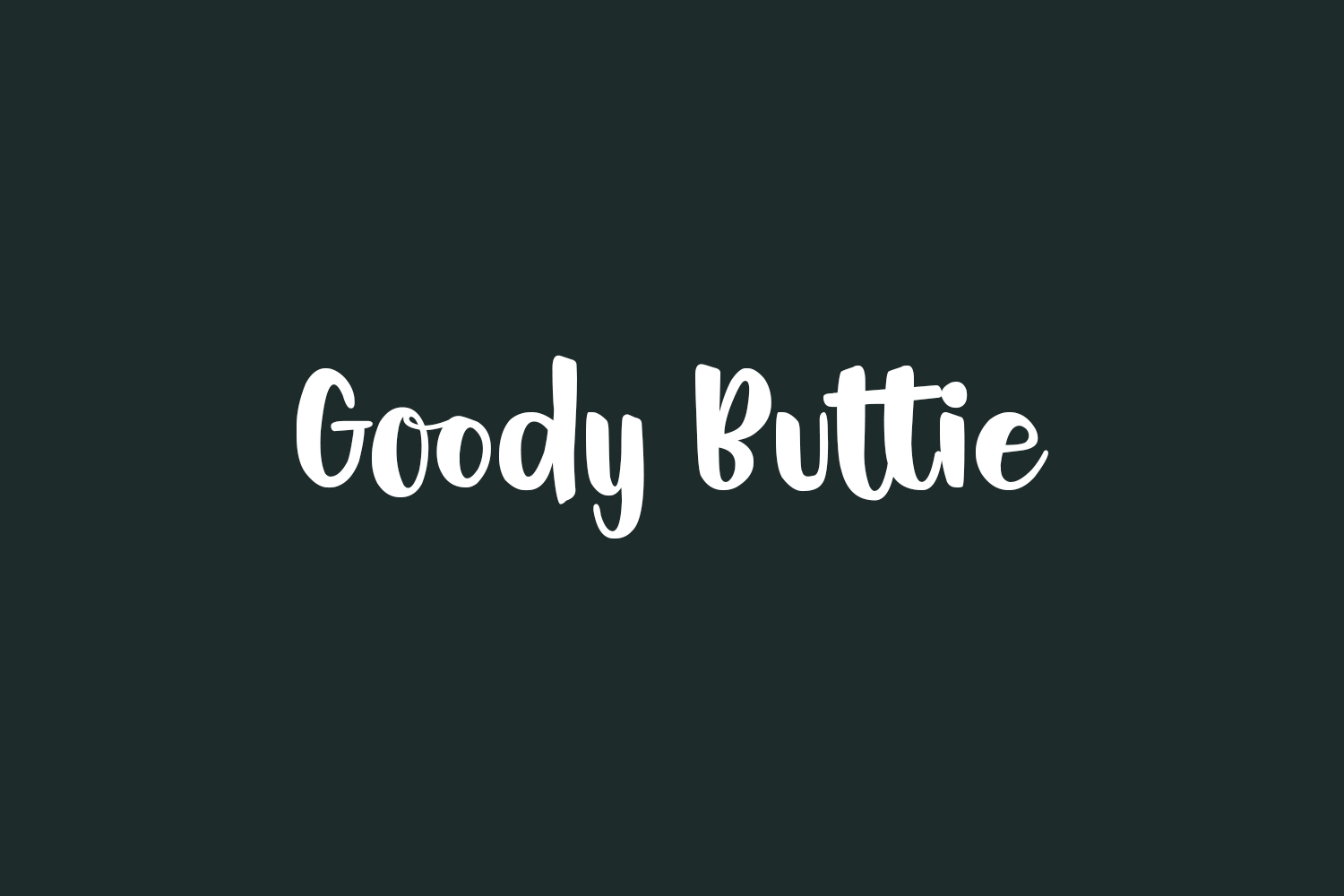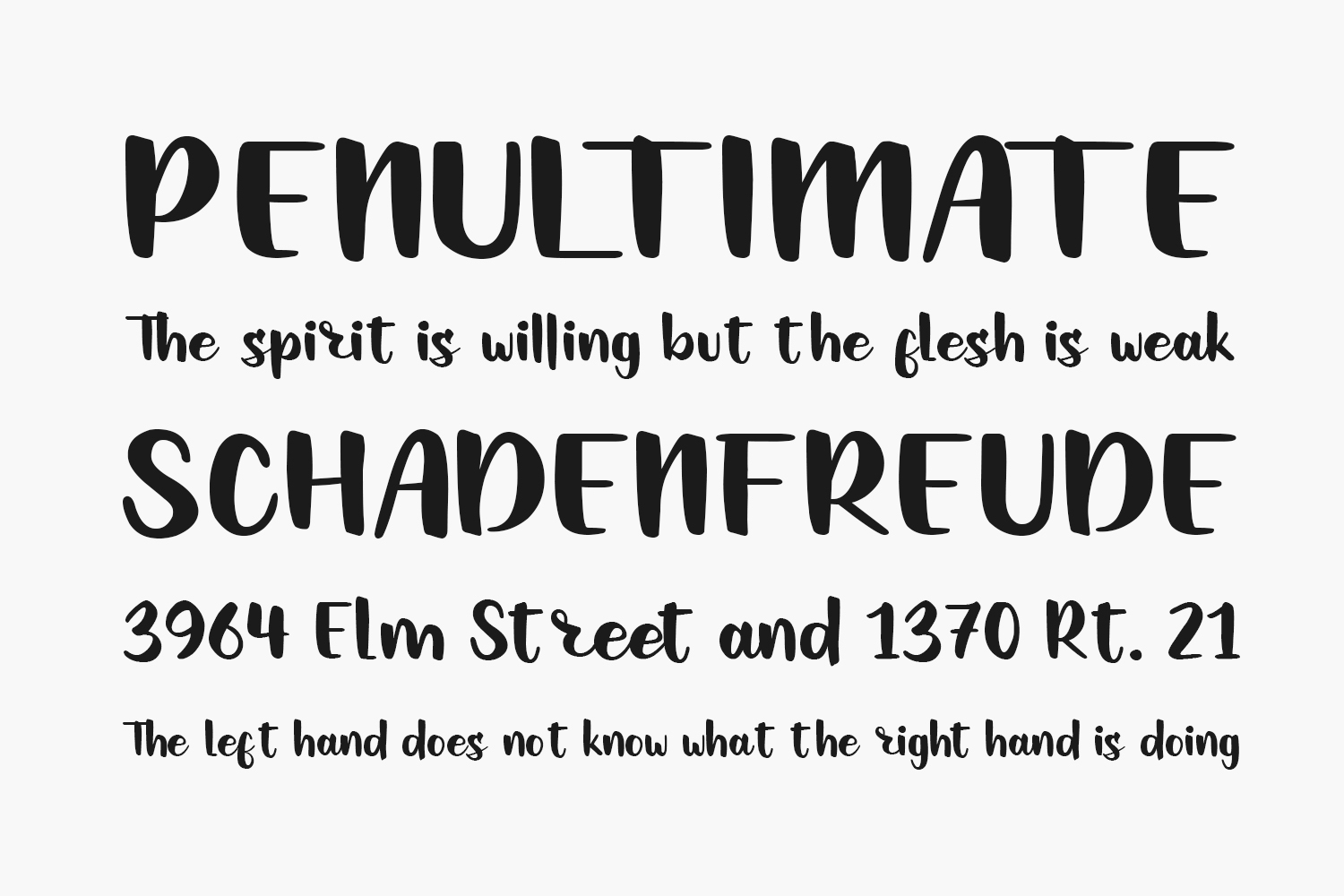
Goody Buttie Free Font is a cute, thick lettered, and flowing handwritten font. Warm, romantic, and jolly, this font will turn each of your project ideas into real works of art. Have fun with this beautiful font and explore its endless variations. Goody Buttie Free Font was designed by Zamjump and is free for personal use only. Please purchase the full version for commercial use.
Designed by Zamjump